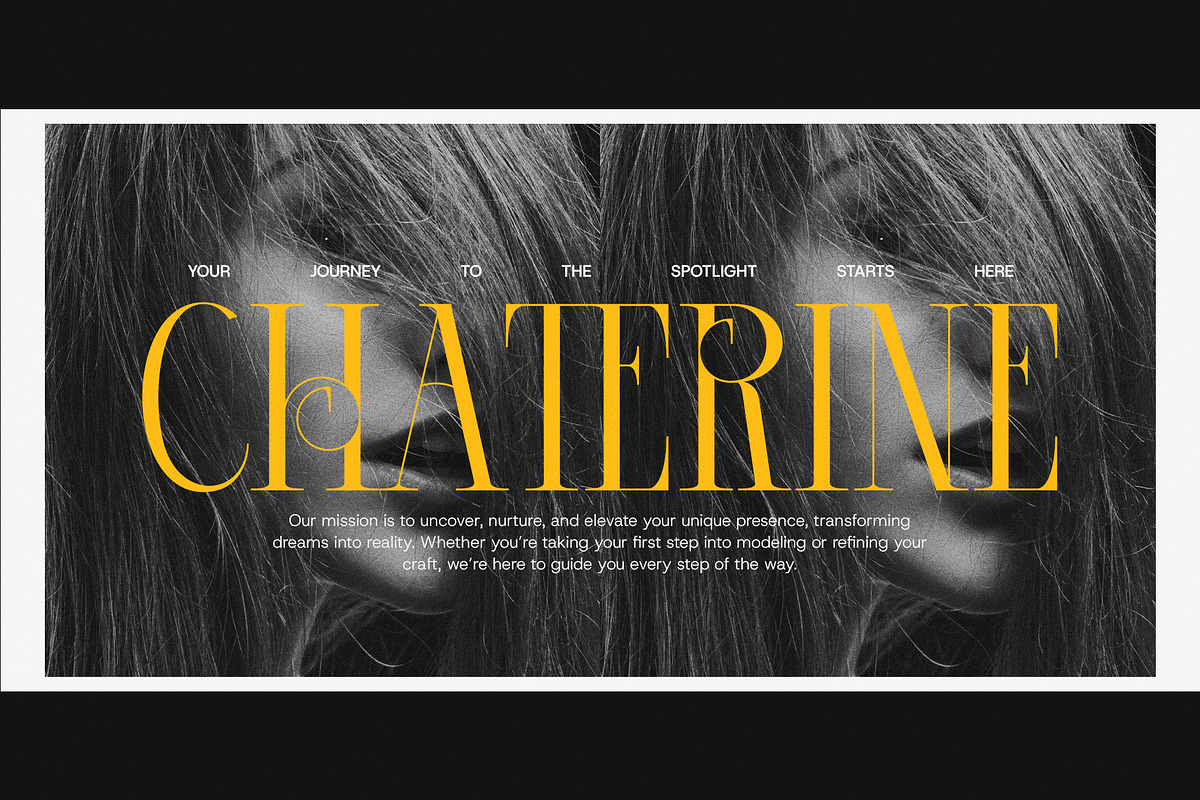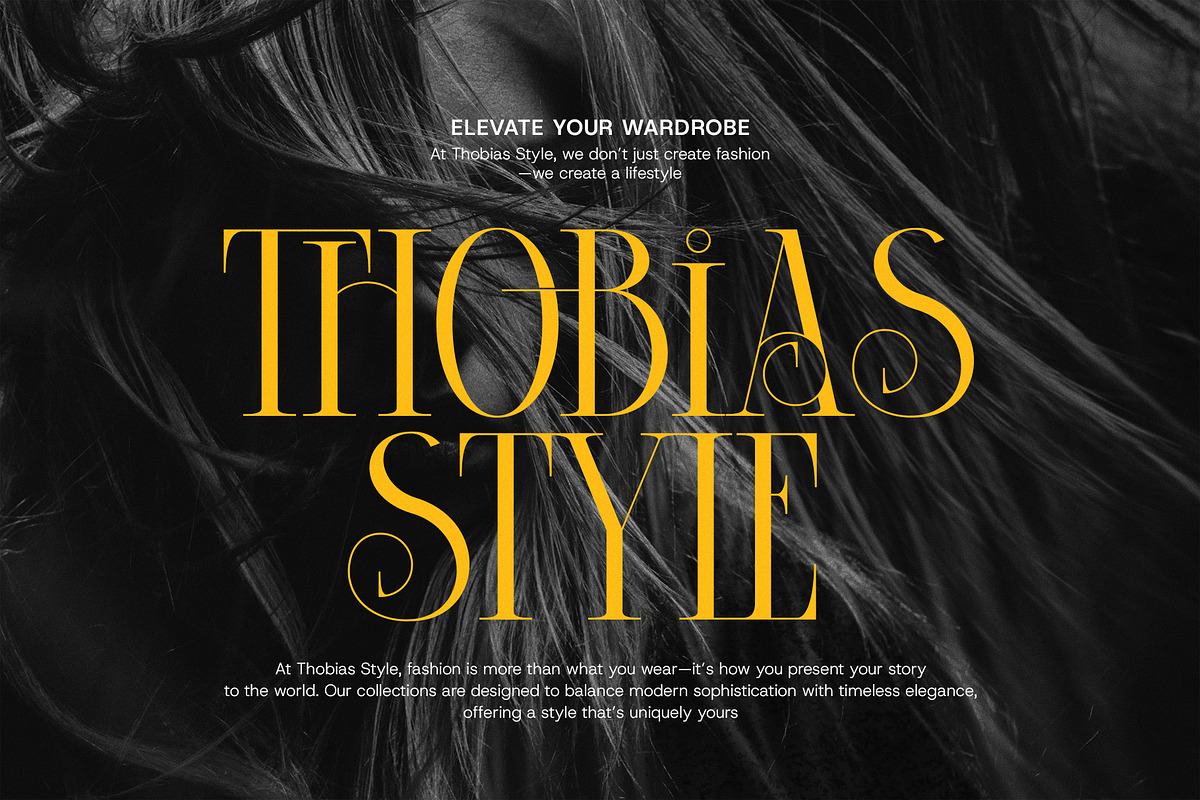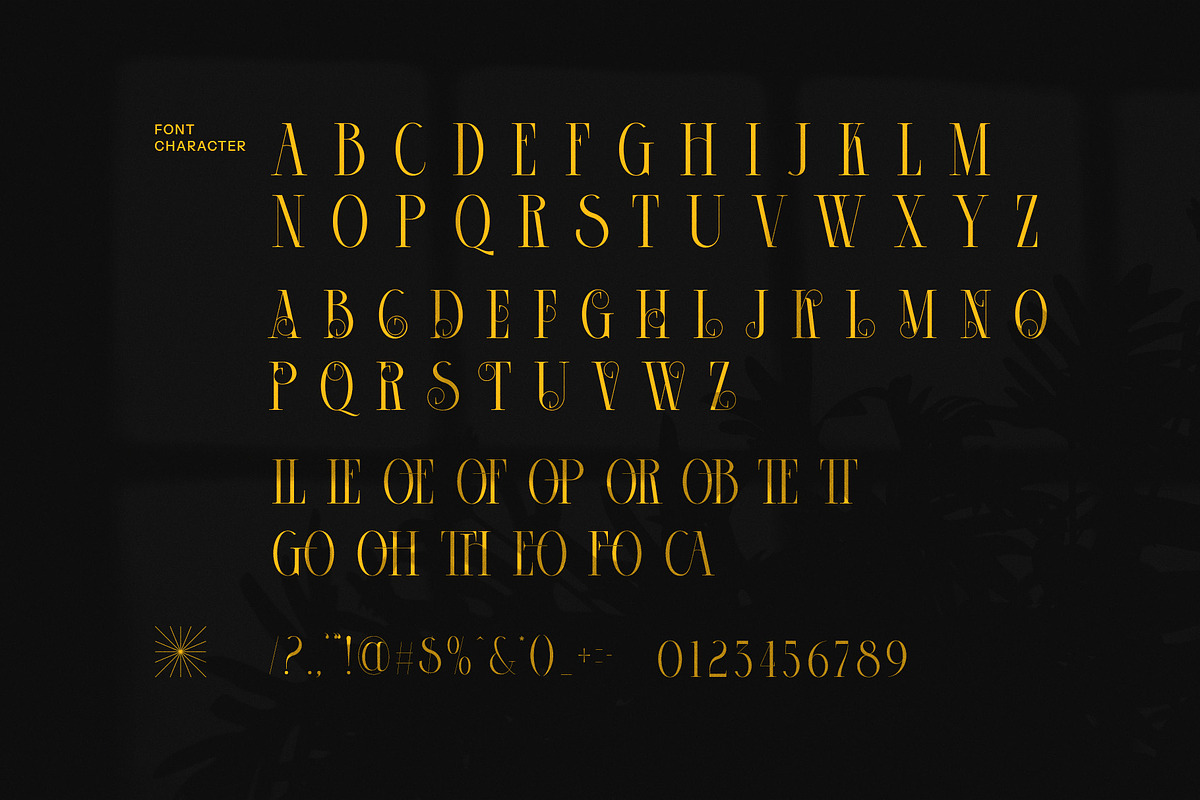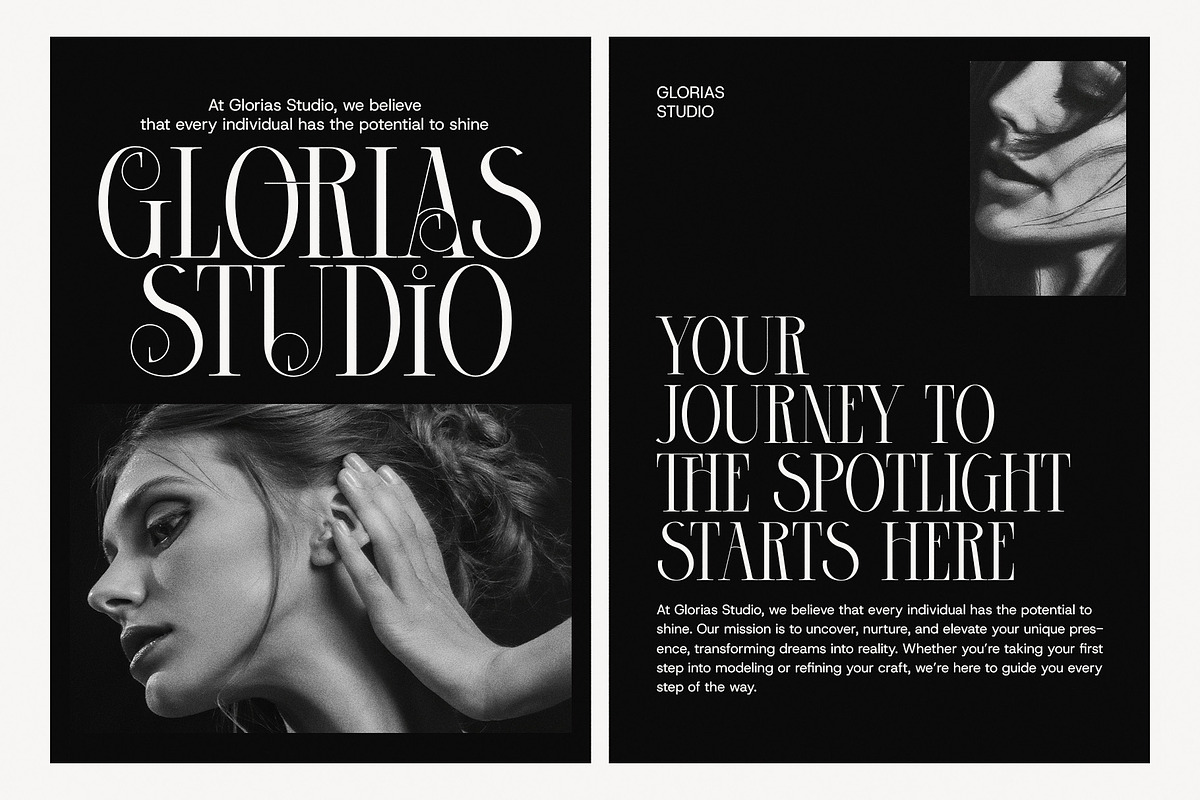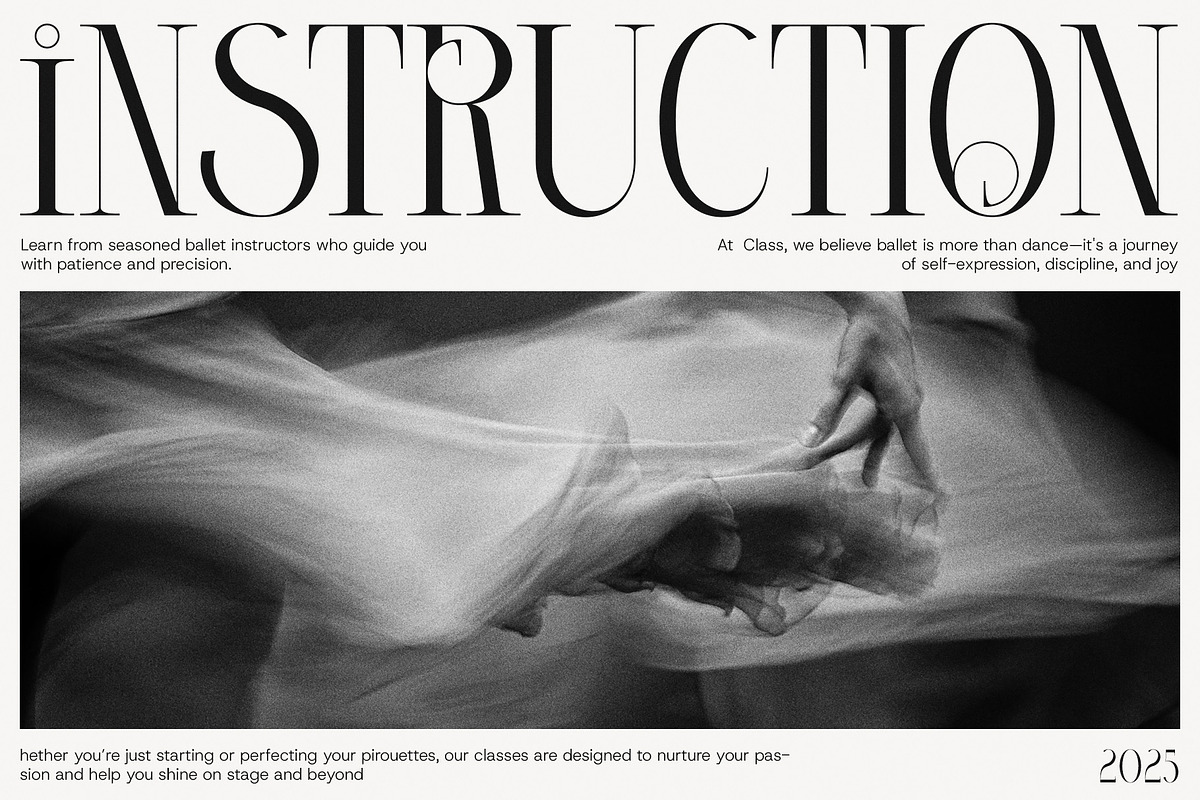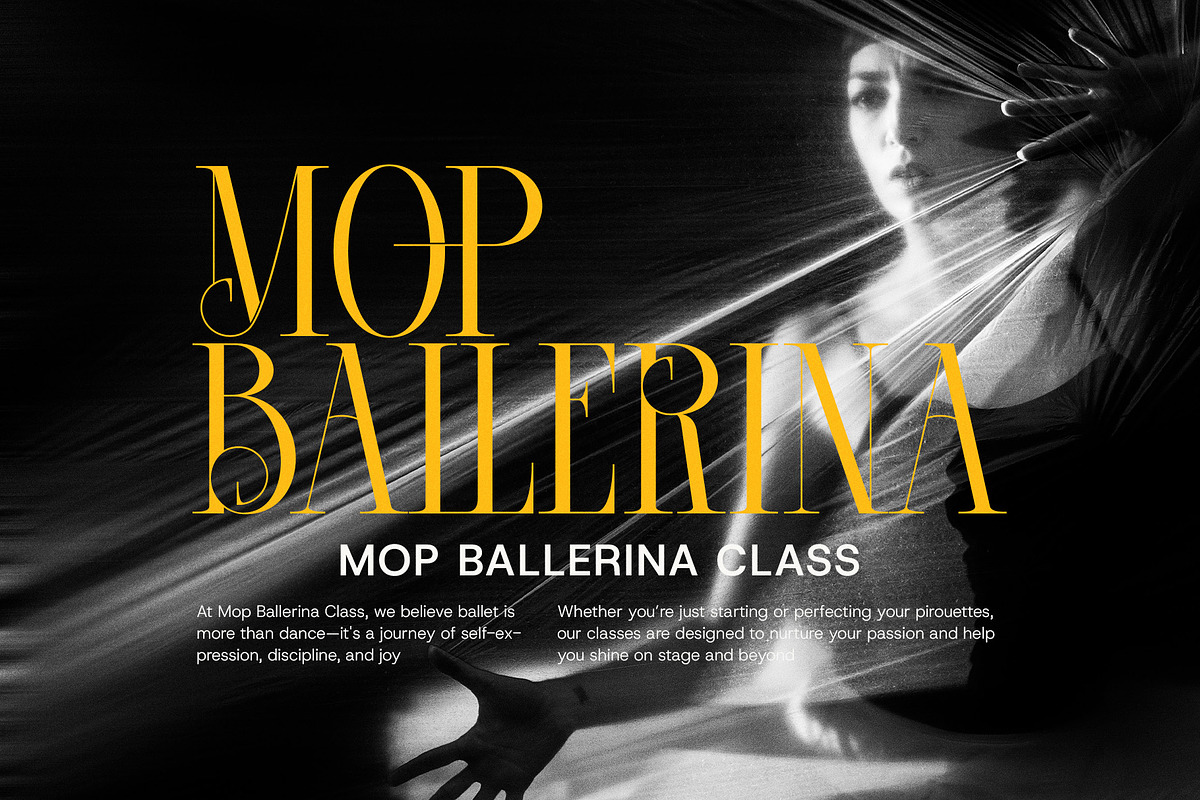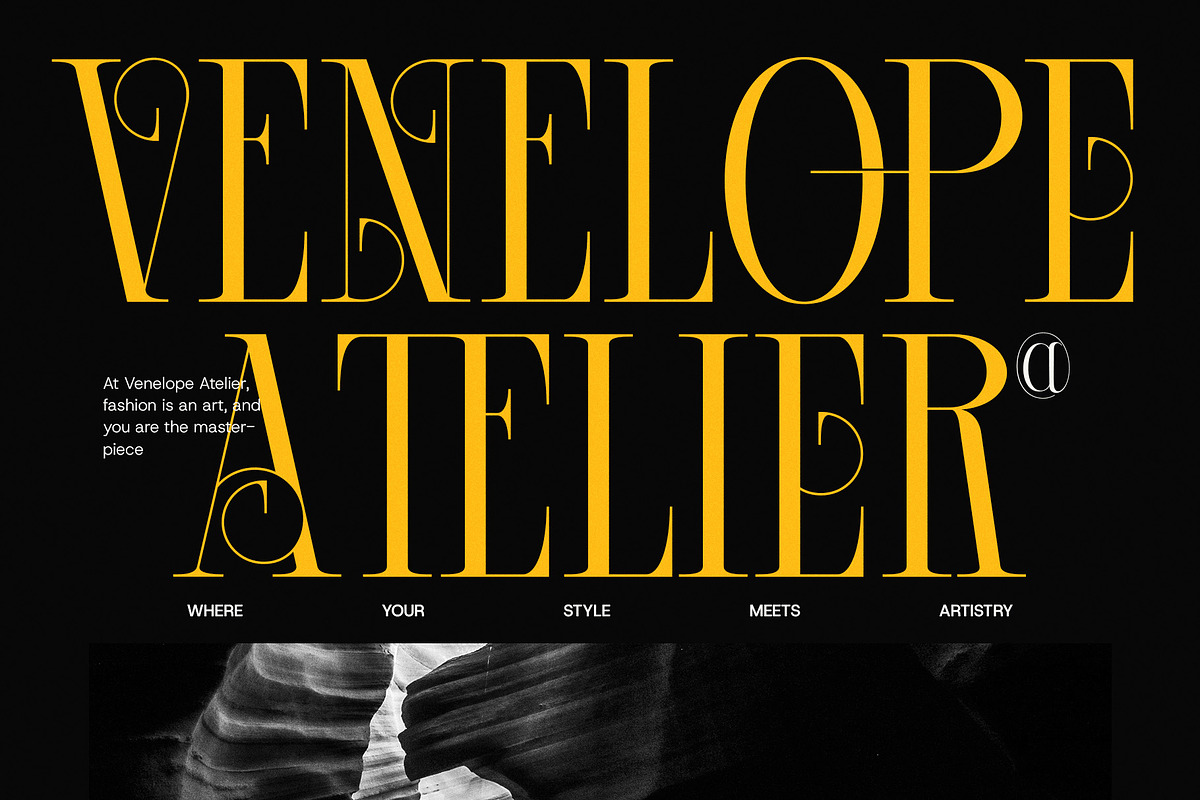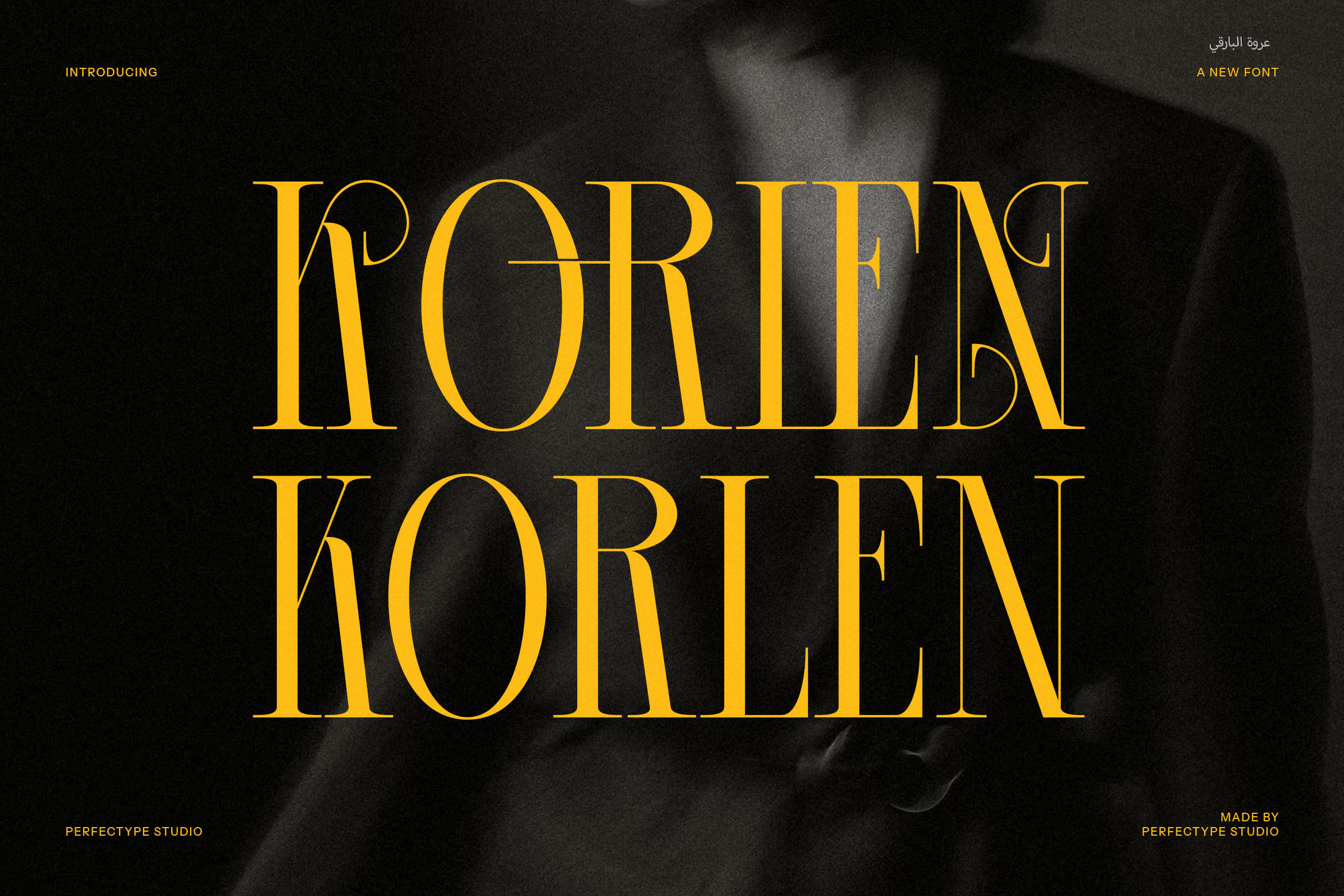
Korlen Elegant Serif Font
Korlen Elegant Serif Font is a sophisticated and contemporary typeface that effortlessly blends modern style with timeless elegance. With its striking serifs and refined curves, Korlen exudes a sense of luxury and class, making it an ideal choice for high-end design projects. The font features unique ligatures and alternate characters, adding a touch of individuality and creativity to every design.
Perfectly suited for branding, logos, and product design, Korlen captures attention with its clear readability and stylish flair. Its versatility shines across various applications, including websites, advertisements, magazines, and boutique labels, ensuring your content stands out with a polished, professional look. Whether you're crafting elegant packaging or designing a sleek website, Korlen adapts beautifully to any medium, providing both aesthetic appeal and functionality.
Korlen's distinctive style makes it a great option for industries where elegance and attention to detail are key. From the food and hospitality sectors to fashion, beauty, and beyond, this font is designed to enhance any visual identity. Its graceful letterforms exude a sense of refinement that elevates any project, making it an essential tool for designers looking to create memorable, eye-catching designs.
Whether used for headlines, body text, or decorative accents, Korlen Elegant Serif Font brings sophistication and charm to the forefront, giving your brand a modern yet timeless presence.